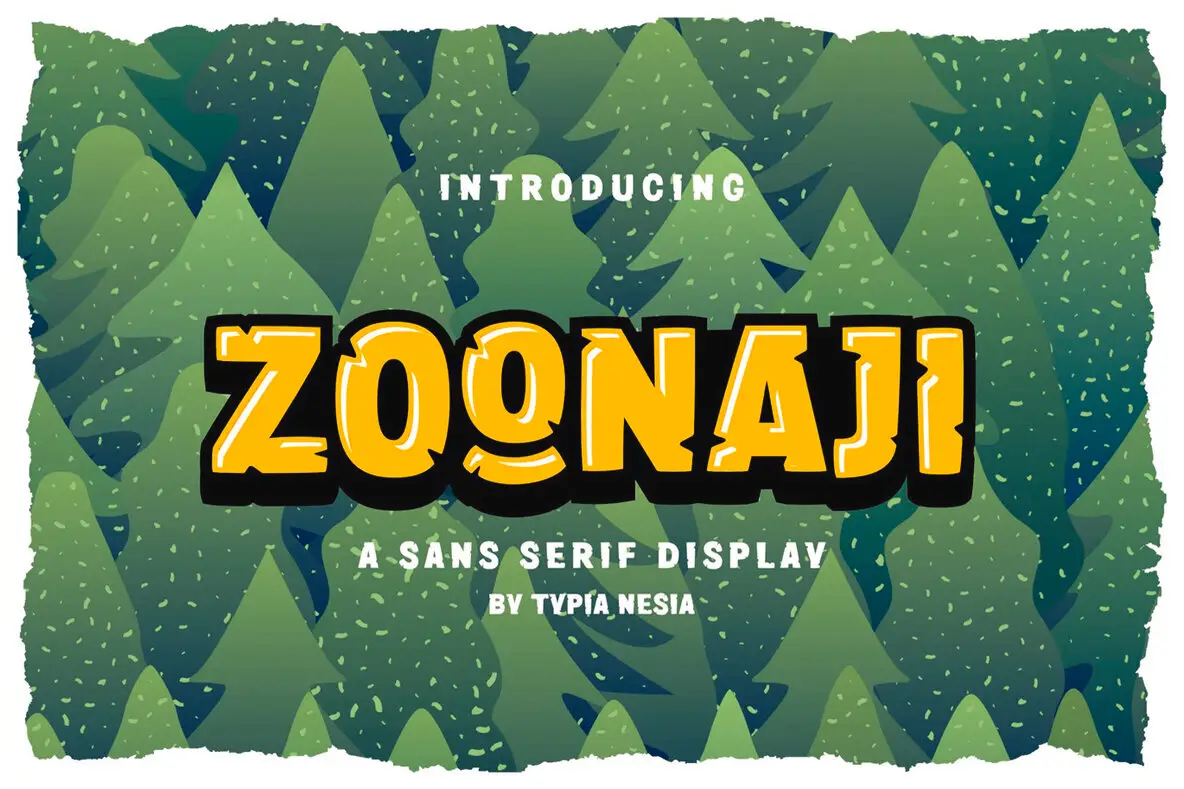
Zoonaji Font
Zoonaji Regular
Zoonaji is an all-caps sans serif display font, crafted to enhance various design projects with its clean and modern aesthetic. Ideal for logo design, editorial projects, and stationery design, Zoonaji offers versatility that suits modern advertising, blog layouts, and more. Its bold character makes it an excellent choice for card invitations, art quotes, home decor, and book covers. It's also perfect for special event materials like wedding or birthday announcements.
Zoonaji's design ensures your projects stand out with a distinctive appeal. Its crisp style makes it not only suitable for branding but also for any ambitious design endeavor where clarity and impact are essential.